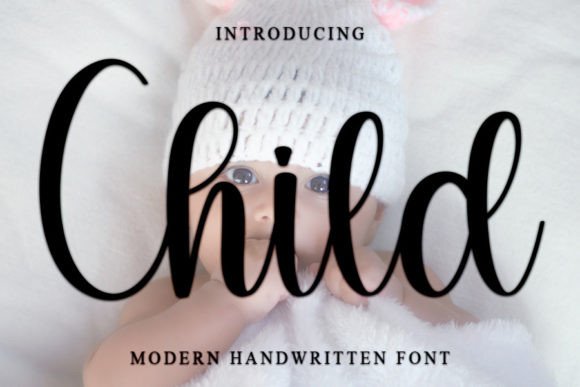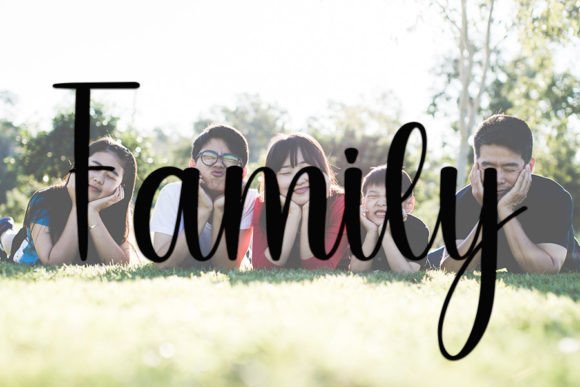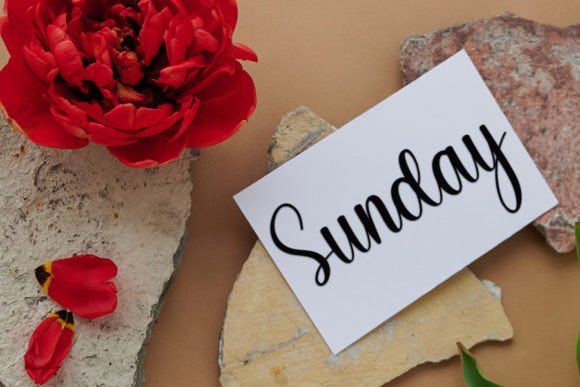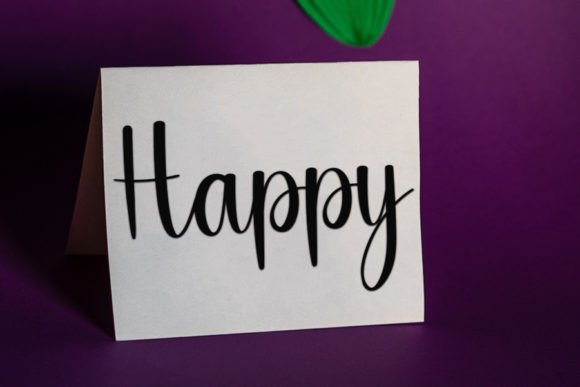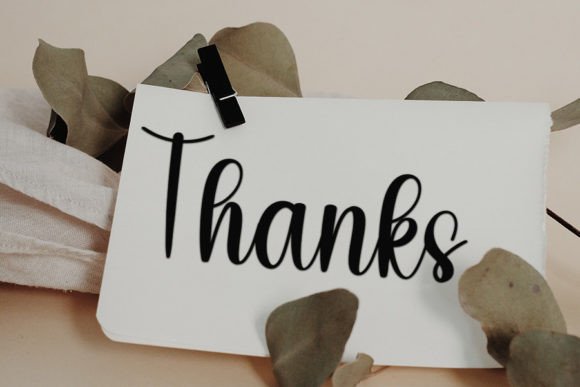
Child Font
About Child Font
Child is a neat and beautiful handwritten font described by an elegant touch, perfect for your favorite projects. Fall in love with its incredibly distinct and timeless style, and use it to create spectacular designs!